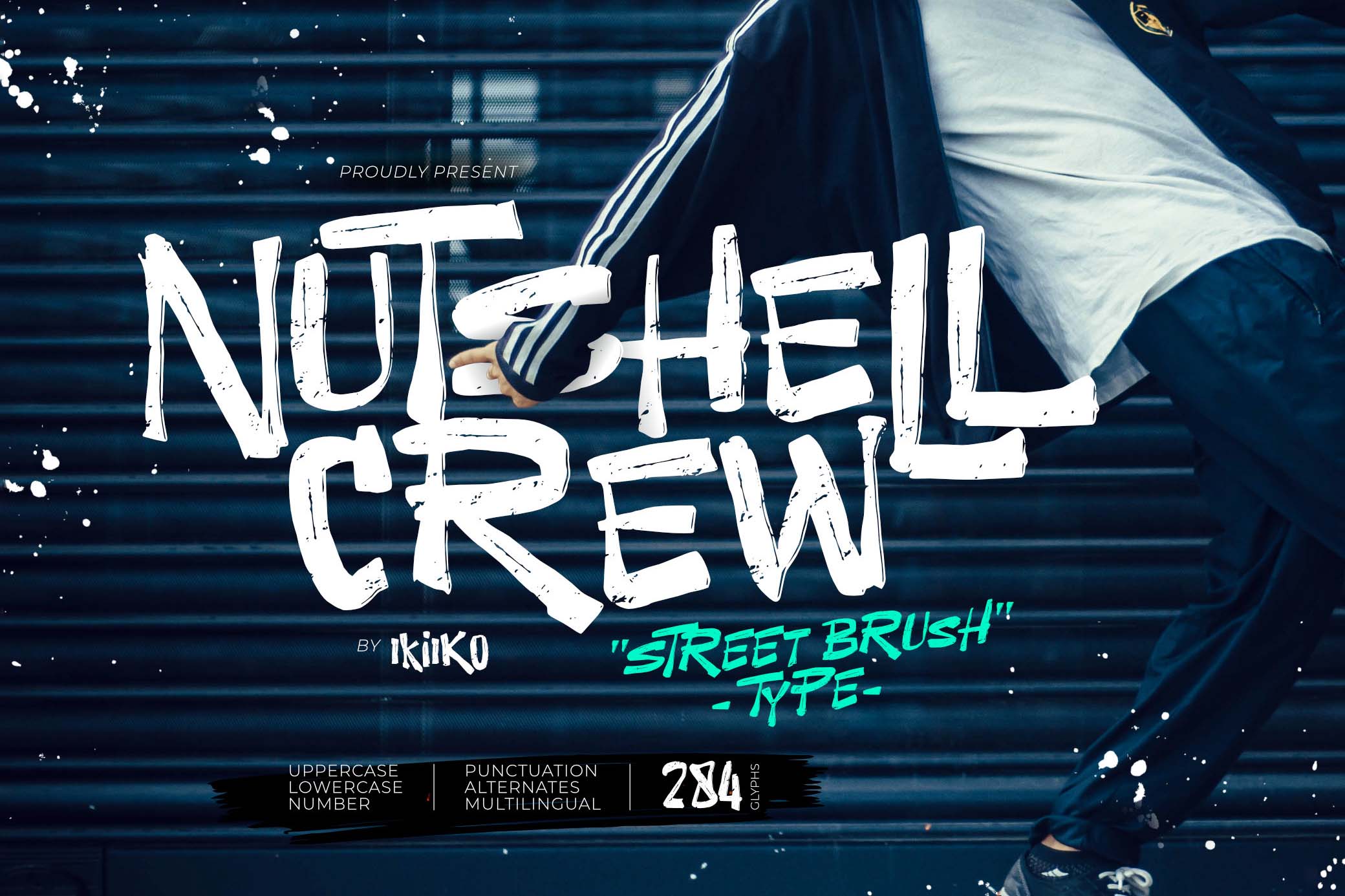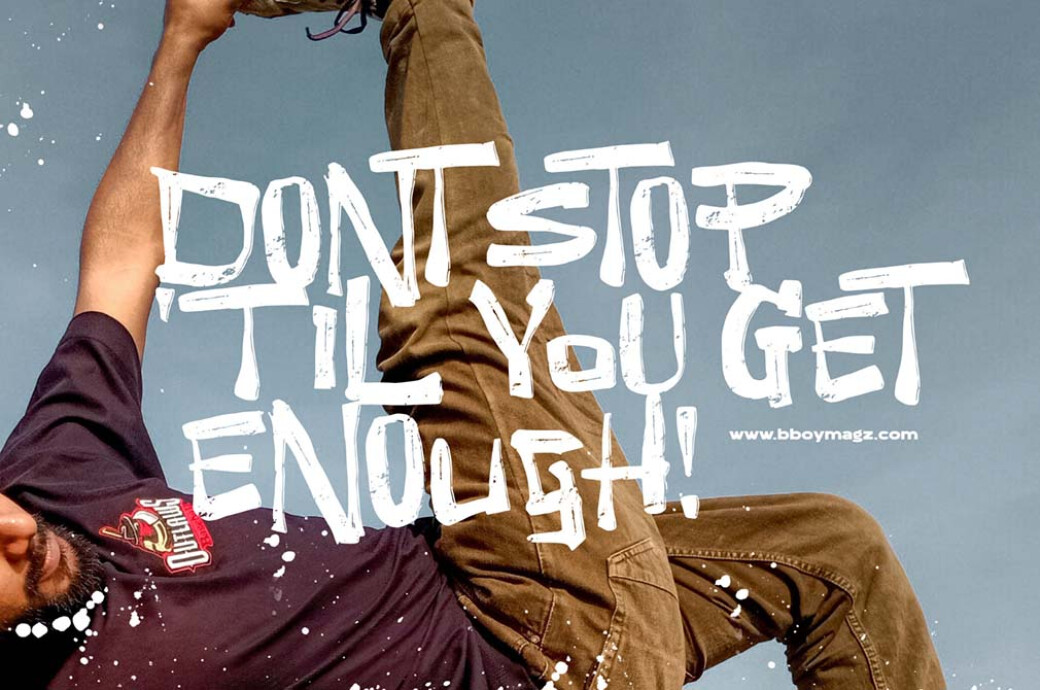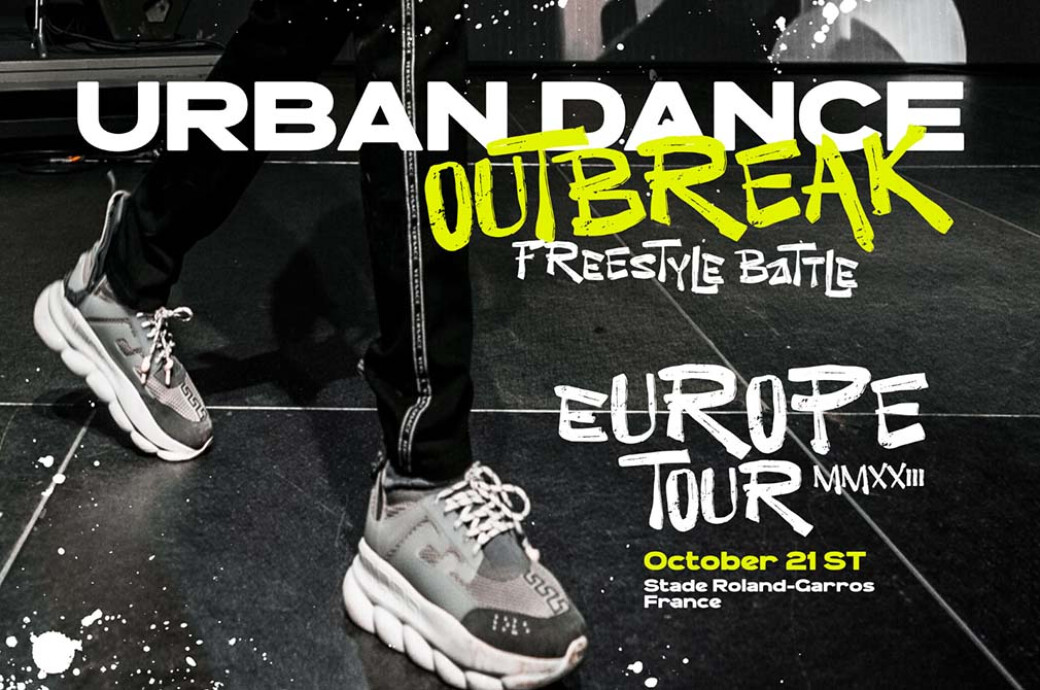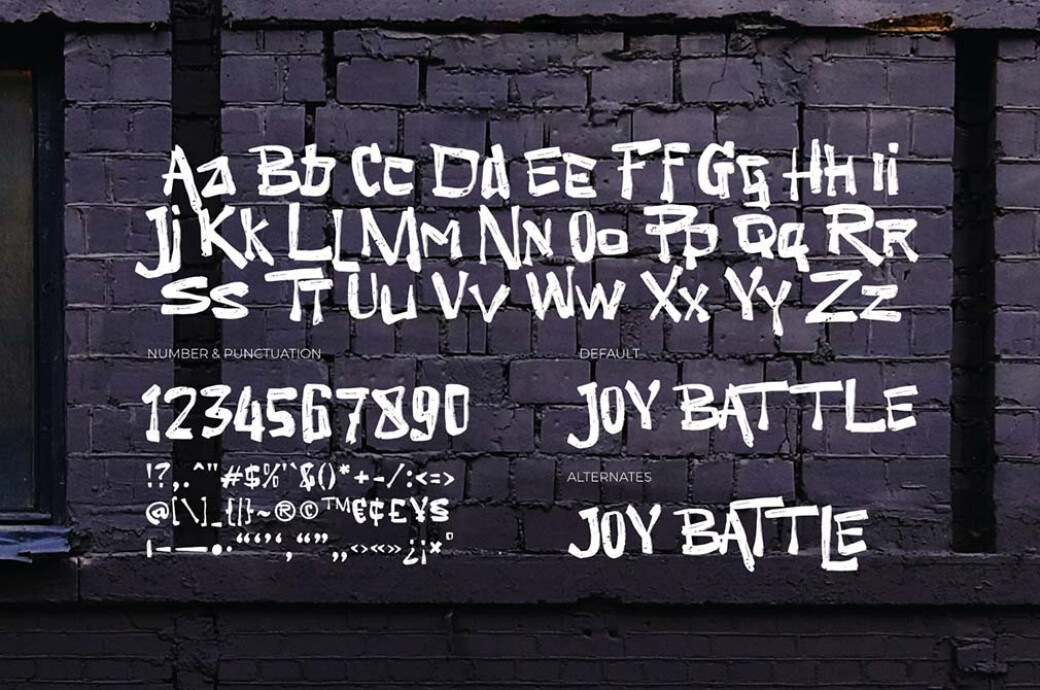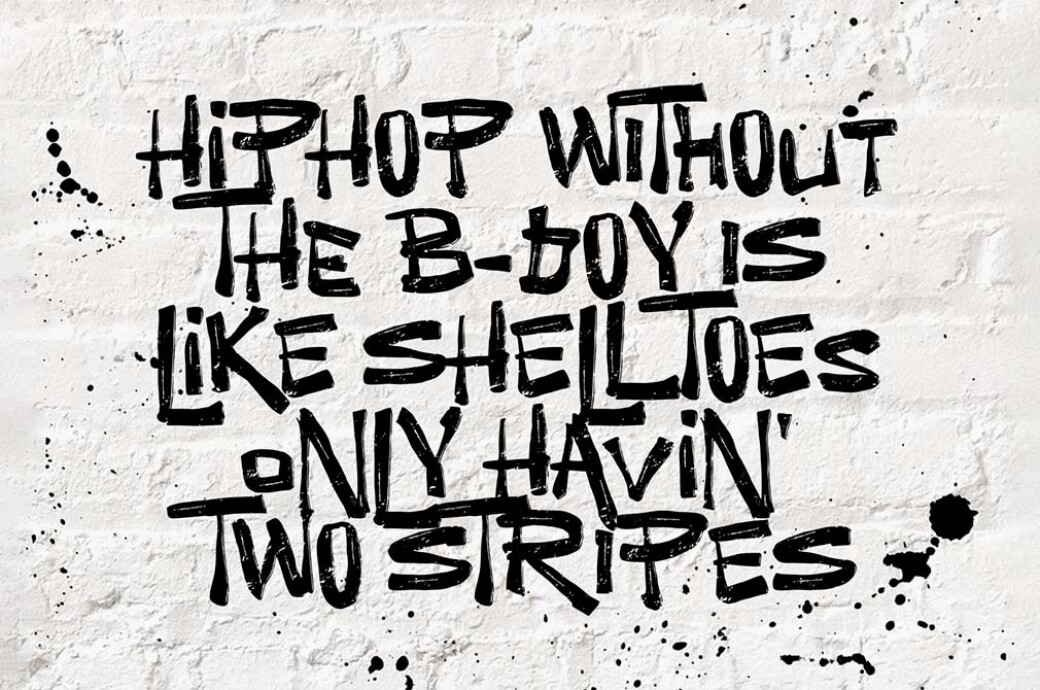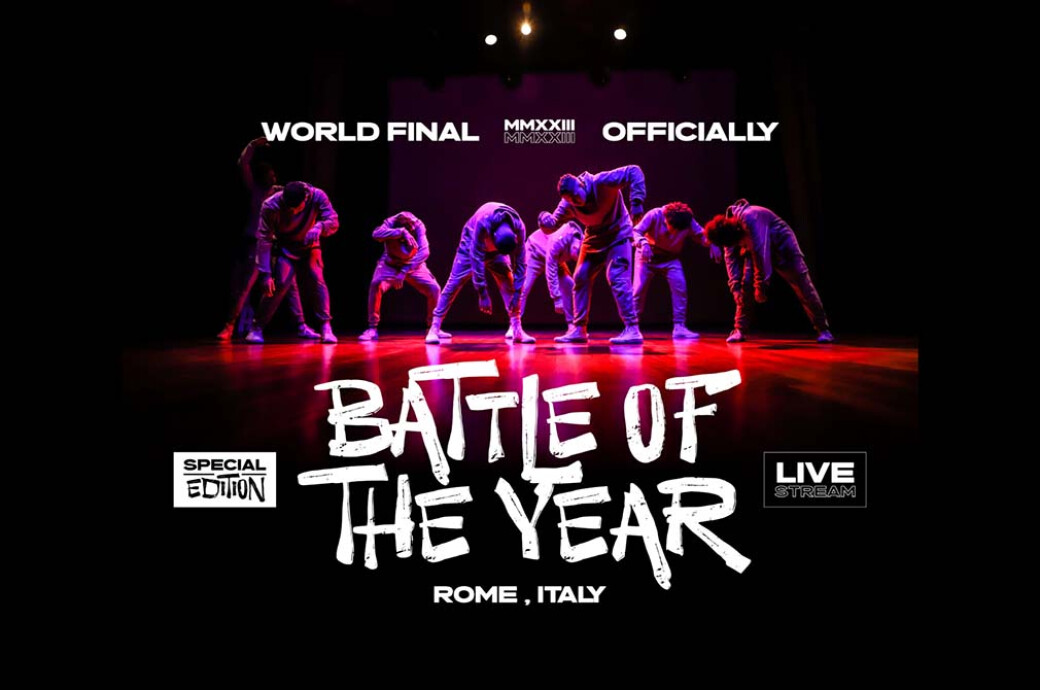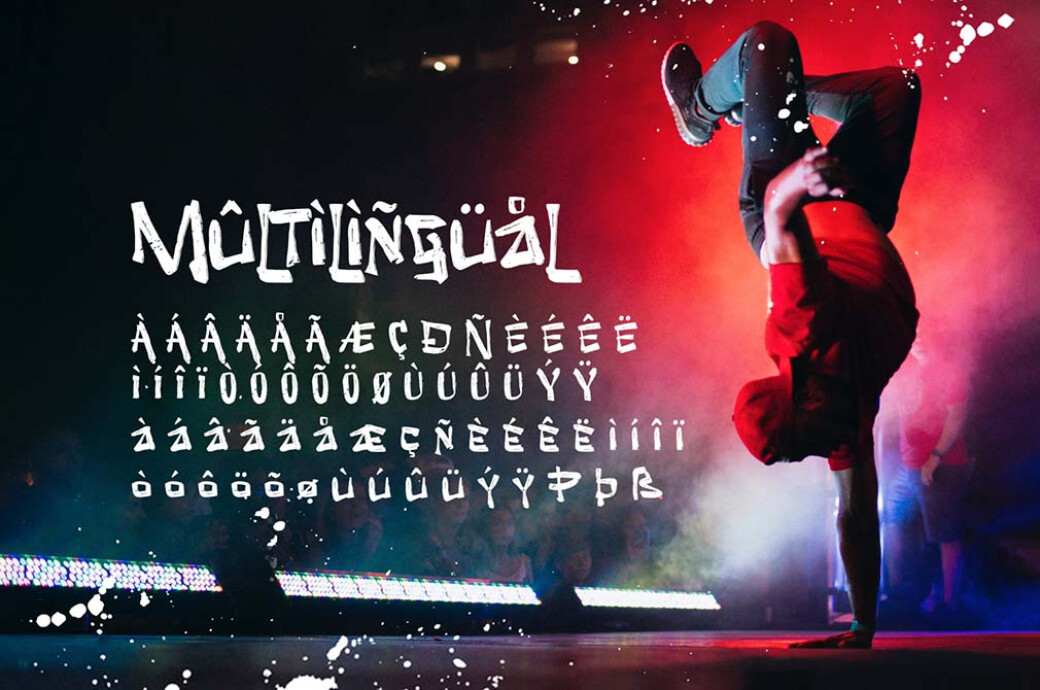
Nutshell Crew — Street Brush Font
Let's get lost in Berlin suburbs and explore the European graffiti styles with Nutshell Crew. This type has absorbed the best of destructive street art.This brush font eliminates all the possible elegance of graffiti and asserts itself as underground-inspired, from random inscriptions in elevators and on bar counters. The unpolished look is the main advantage of Nutshell Crew, though, as you can use it in many projects: from streetwear designs to branding, where you should balance fancy graphics. The font includes a complete set of characters, alternates, and multilingual support. Two formats are available: OTF & TTF.